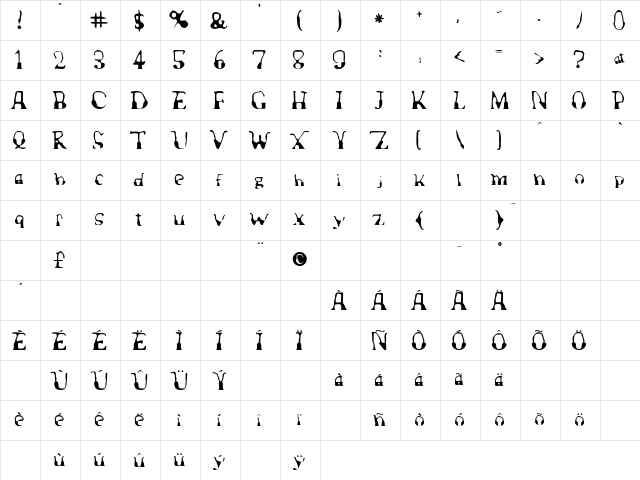
Complete DogboySplitHome Regular glyph index. Displaying only characters natively supported by DogboySplitHome Regular font.
DogboySplitHome is a composed and adaptable typeface that performs quietly and consistently across a wide range of design contexts.